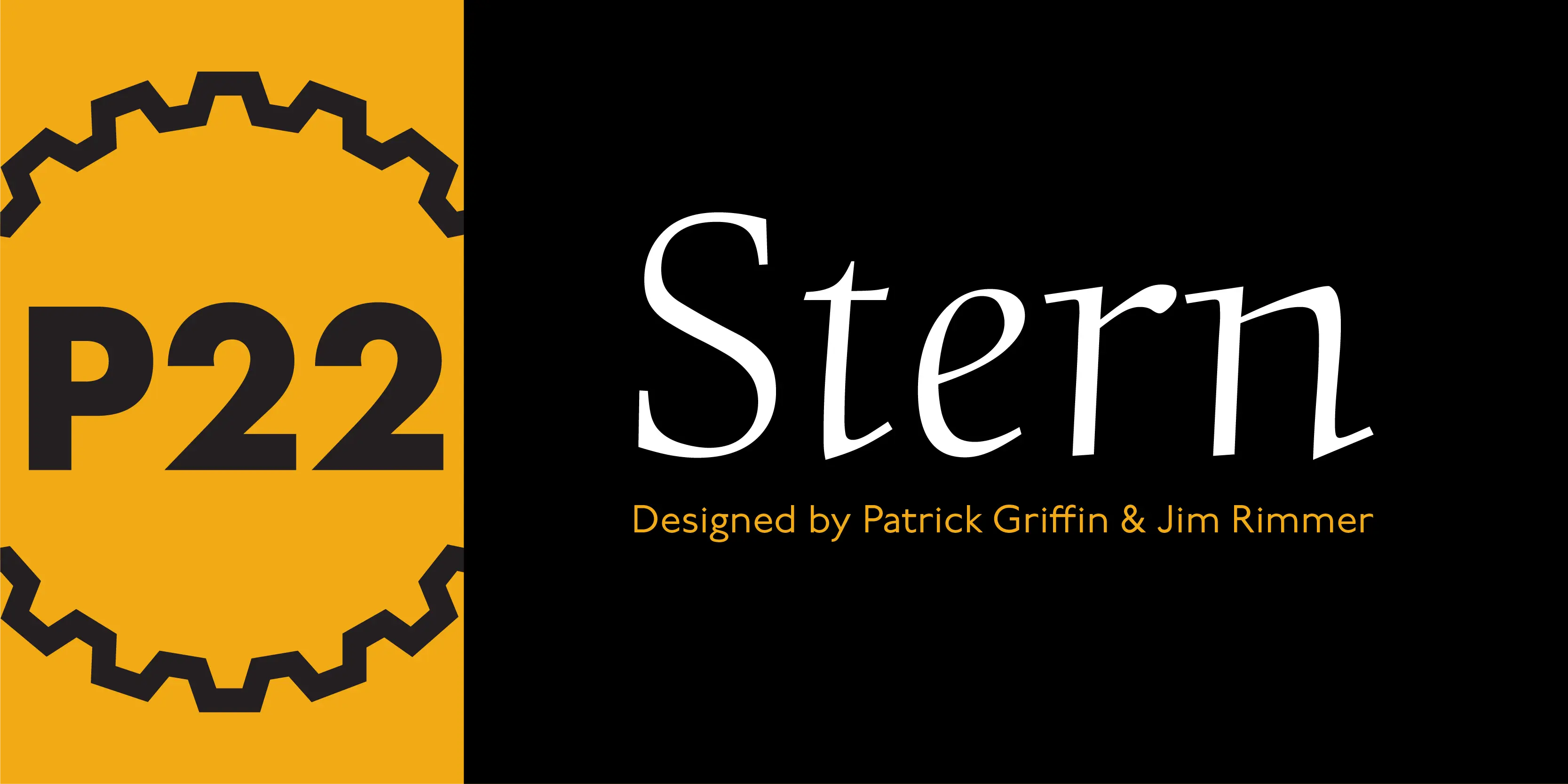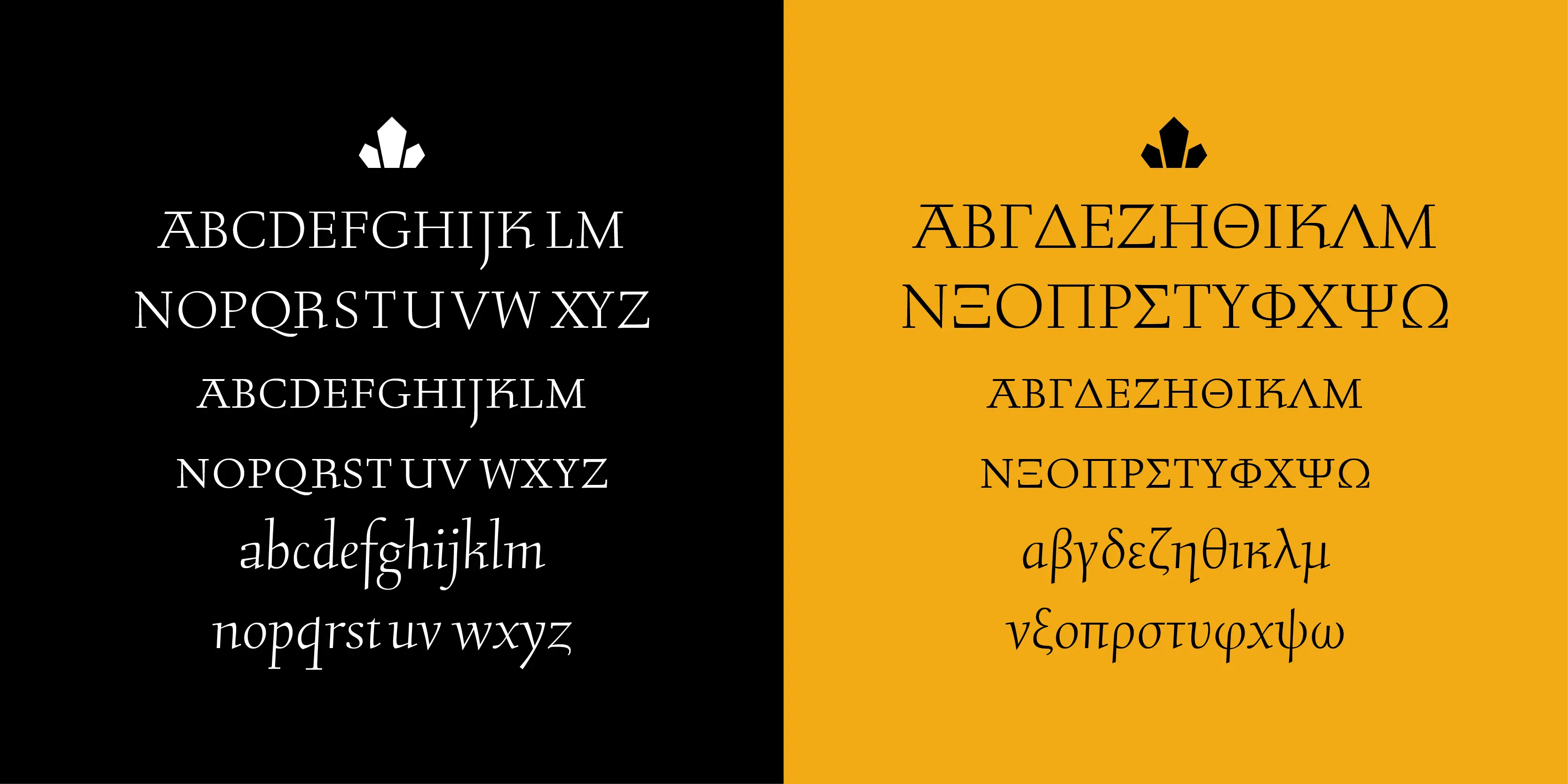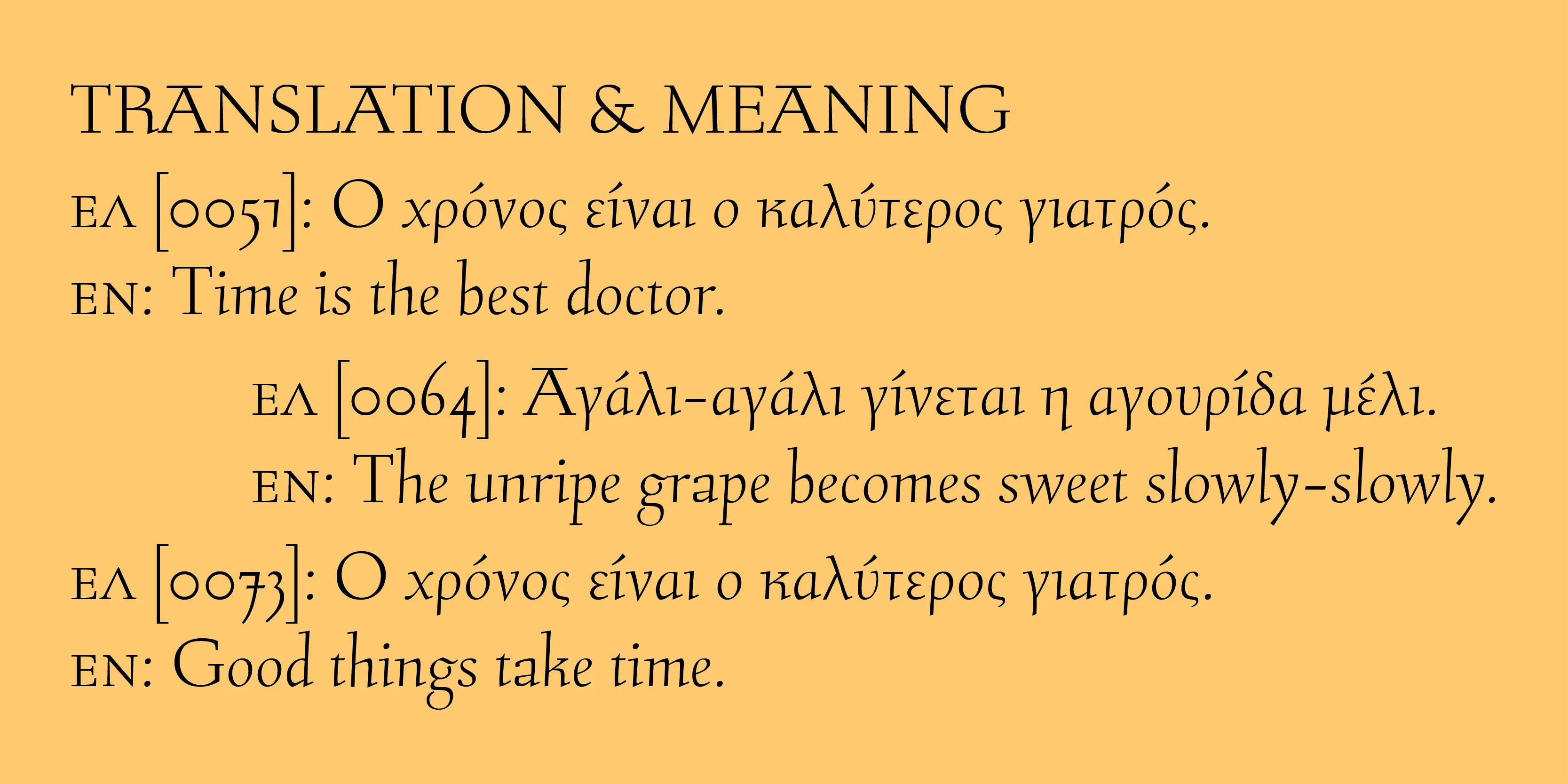
Stern Font
Stern
Originally released in 2008, Stern is the only typeface to be produced and marketed simultaneously in digital and metal. In the twenty-first century, no less. It is also the last typeface Jim Rimmer ever completed. The process he used for its design and manufacture is the stuff of legend, and can be seen in the Richard Kegler documentary, Making Faces: Metal Type in the 21st Century. The design is a delicate upright italic named in memory of Chris Stern, the late artist and printer from Washington State. In 2013, Canada Type remastered and expanded the design’s offerings to a glyphset of over 1200 characters, updated programming.
- Common Ligatures
- Discretionary Ligatures
- Fractions
- Historical Ligatures
- Lining Numerals
- Old Style Numerals
- Ordinal Numerals
- Slashed Zero
- Small Capitals
- Small Capitals for Capitals
- Stylistic Alternates
- Stylistic Sets
- Subscript
- Superscript
- Titling Capitals